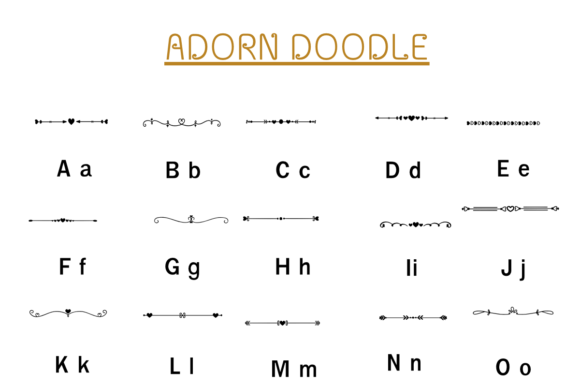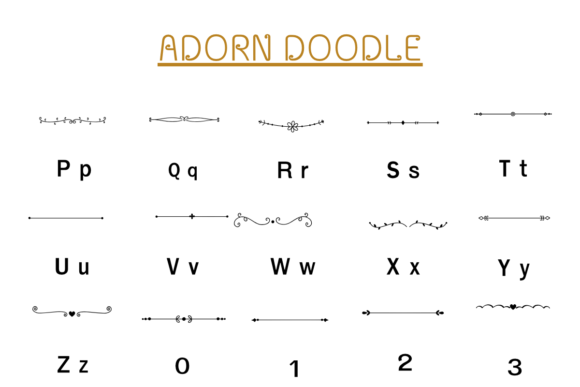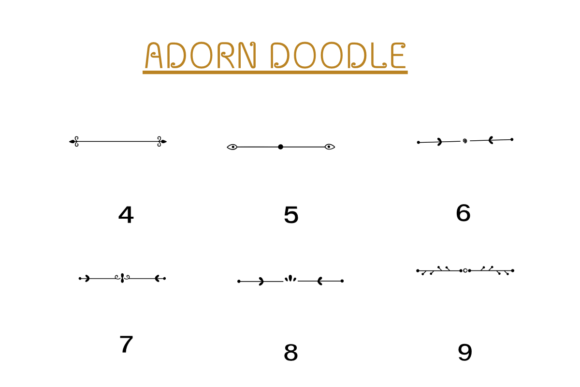
Adorn Doodle Font
Adorn Doodle is a lovely dingbat font with a cute theme. This font can enhance your crafty projects such as wedding invitations, DIY, crafts, decorations, logos, and many other creative ideas.